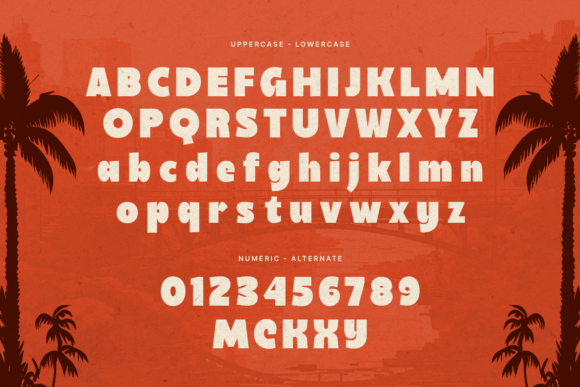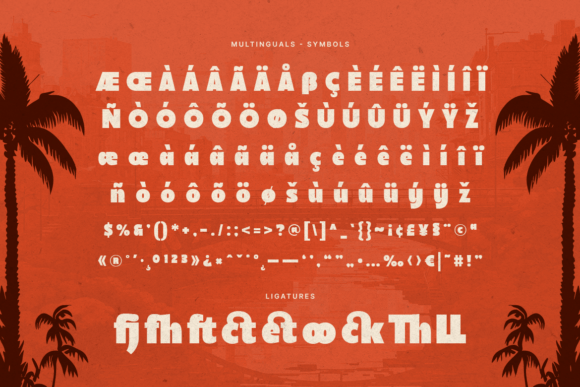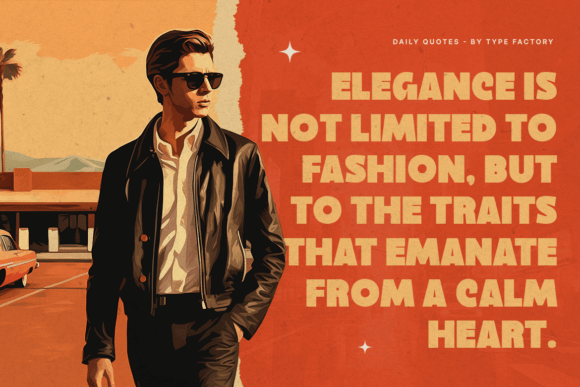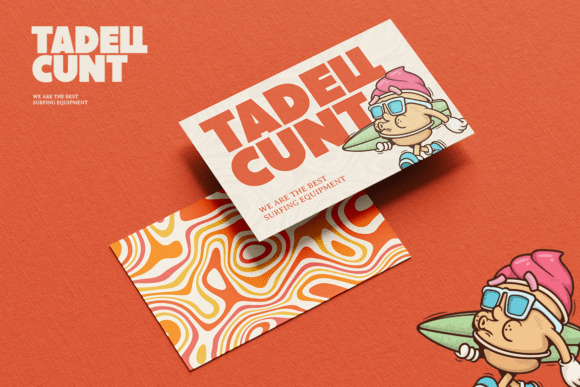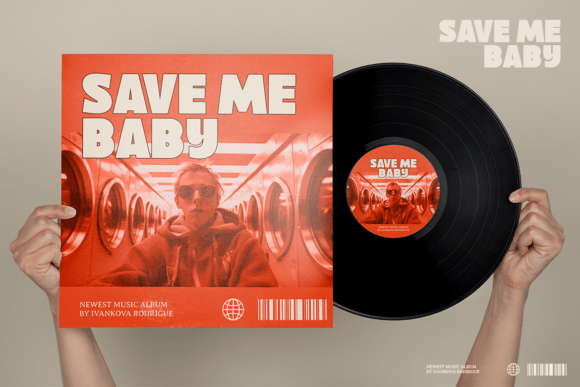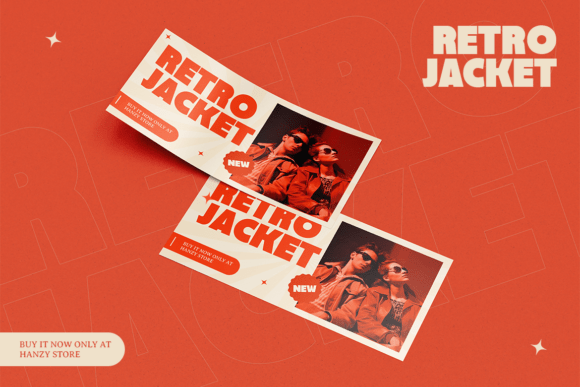
Introduction to Crizco Font
Crizco is a vibrant and playful retro sans serif font that brings a blast from the past to your designs.
Inspired by classic vintage aesthetics, this typeface is perfect for adding a touch of nostalgic charm and fun to any project With its bold, clean lines and distinctive rounded edges, Crizco offers excellent legibility while exuding a unique personality.